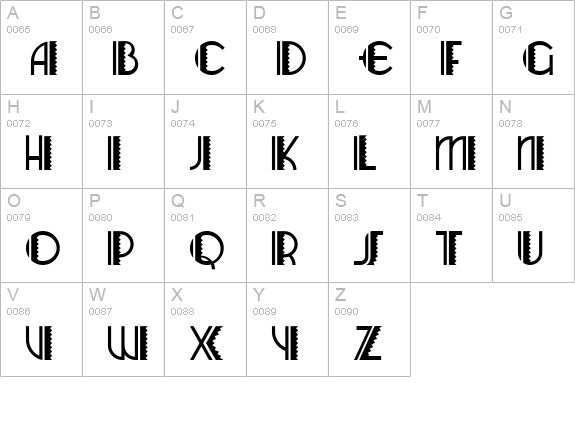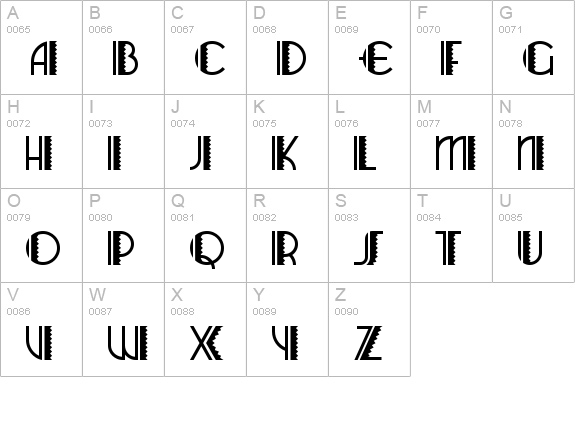
Arizona Airways NF Font Details
Arizona Airways NF font is a captivating and elegant typeface inspired by the classic aviation era. With its sleek lines and timeless appeal, this font is perfect for creating eye-catching designs that exude sophistication and style. Whether you're working on a branding project, poster design, or any other creative endeavor, Arizona Airways NF font will surely make a lasting impression. What makes Arizona Airways NF font even more appealing is that it is available for free download at FontsMarket.com. This means that you can easily access this stunning typeface and use it in your projects without any cost. Don't miss the opportunity to enhance your designs with the beauty and charm of Arizona Airways NF font. Download it today and take your creations to new heights!